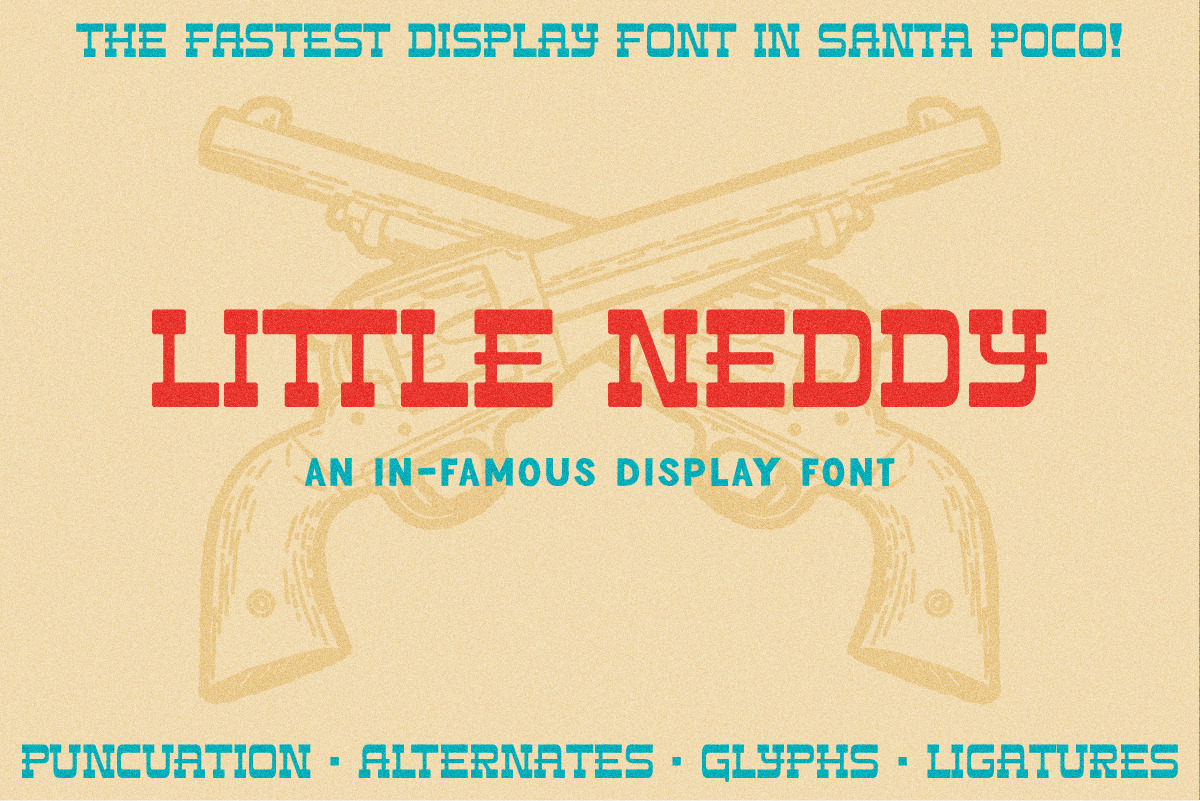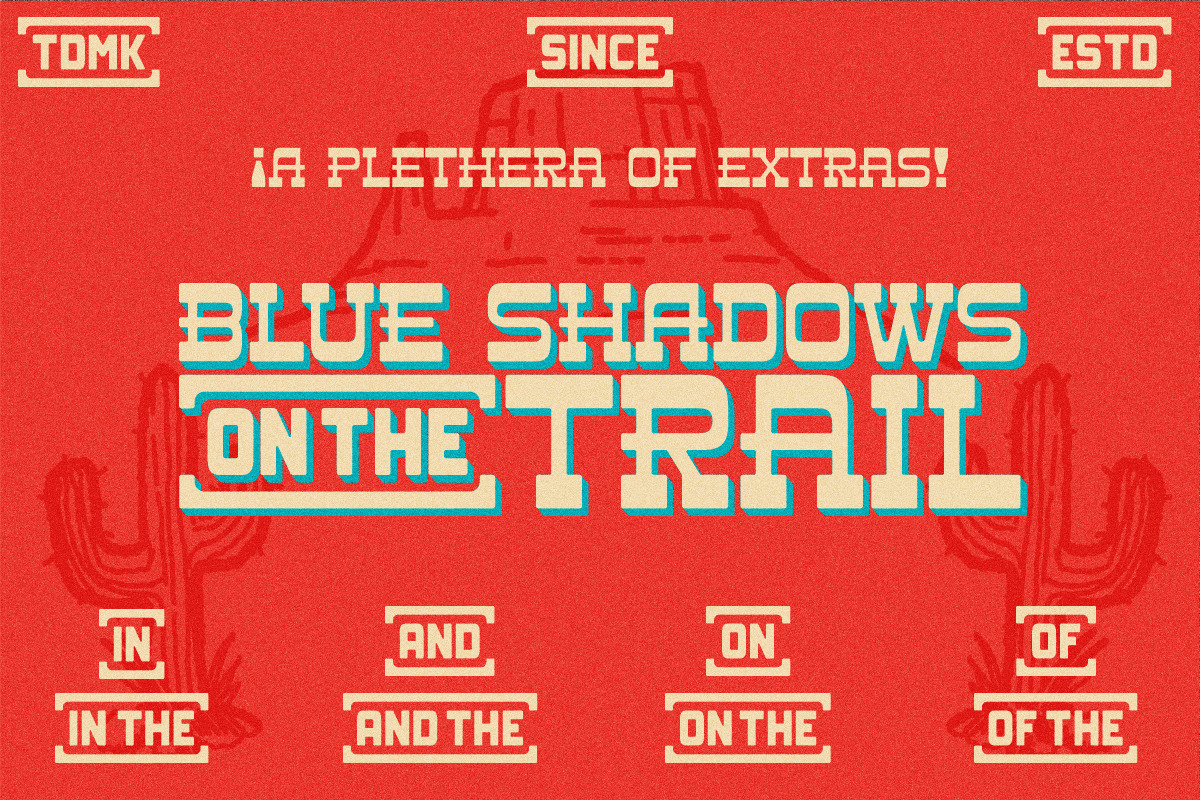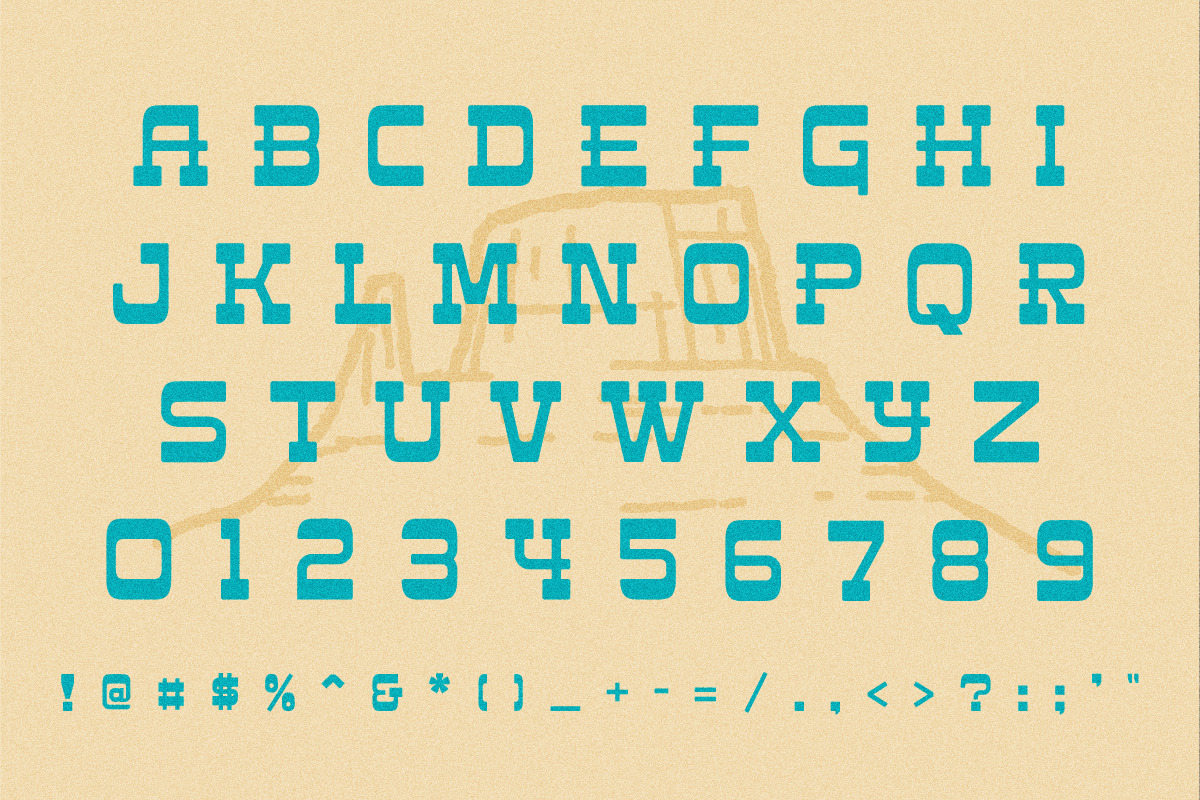
Little Neddy Display Font
A display font that will be so famous it will be in-famous. Perfect for a spicy western kick to your next project. Whether you are designing a brand for a taco stand or pruning the hedges of many small villages, this versatile font is the one for you!